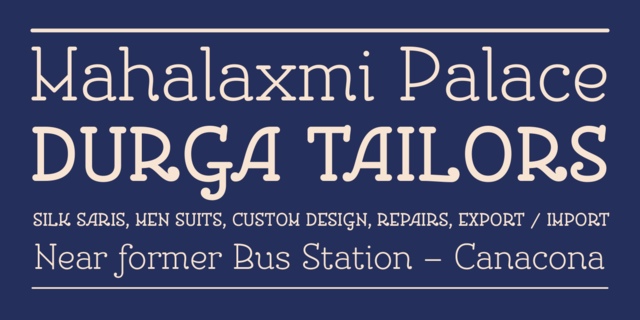
Rondka Font
Rondka Font is perfect for modern logo designs, tech company branding, mobile app interfaces, website headers, gaming graphics, futuristic posters, digital marketing materials, social media content, startup presentations, and contemporary product packaging. This cutting-edge typeface excels in digital environments where innovation and forward-thinking design are essential.
What makes Rondka Font exciting is its bold geometric structure combined with subtle rounded edges that create a perfect balance between strength and approachability. The font's clean lines and contemporary aesthetic make it incredibly versatile for both display and text applications. Its distinctive character shapes help brands establish a modern identity while maintaining excellent legibility across various screen sizes and print formats.
The Rondka Font family typically includes multiple weights ranging from Light to Black, along with corresponding italic styles. Many versions feature extended character sets with multilingual support, special symbols, and numerical variations. Some collections may include condensed and expanded versions, providing designers with comprehensive options for creating dynamic typographic hierarchies and cohesive brand systems.
Whether you're developing a tech startup's visual identity, designing user interfaces, or creating promotional materials for innovative products, Rondka Font Free Download delivers the contemporary edge that today's brands need. Its versatile nature makes it suitable for both corporate communications and creative projects. The font's ability to convey reliability while maintaining a fresh, modern appearance makes it particularly valuable for companies operating in competitive markets where differentiation and memorability are crucial for success.